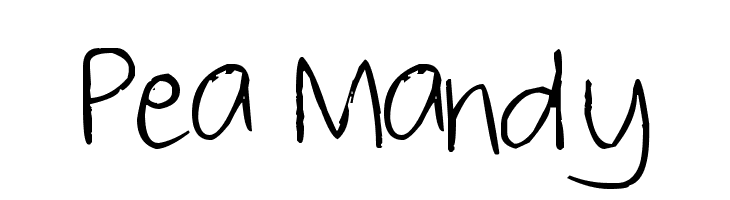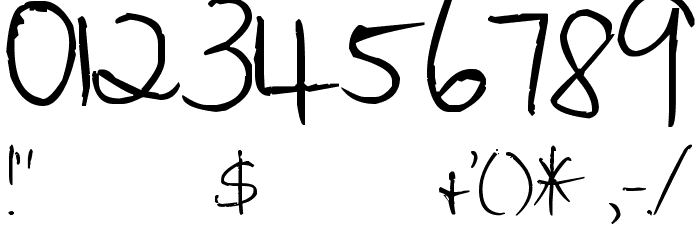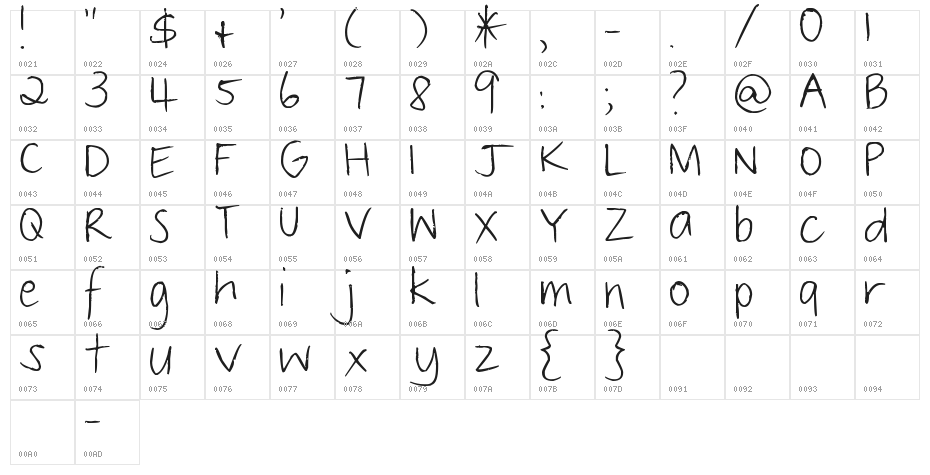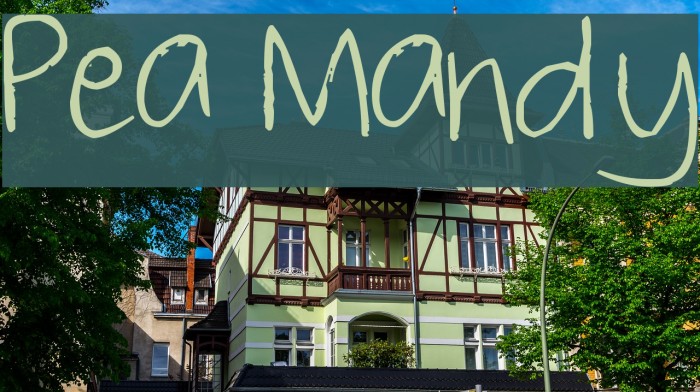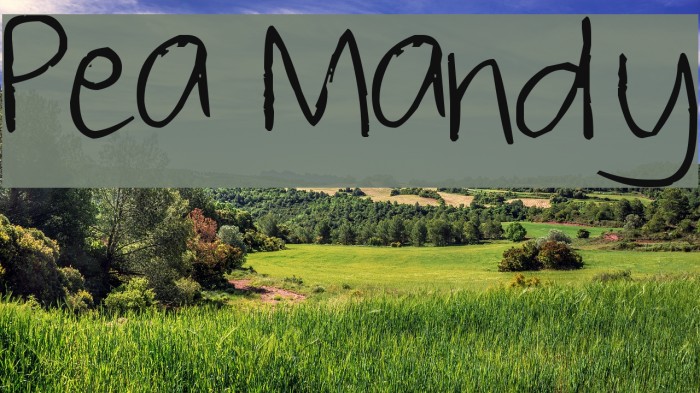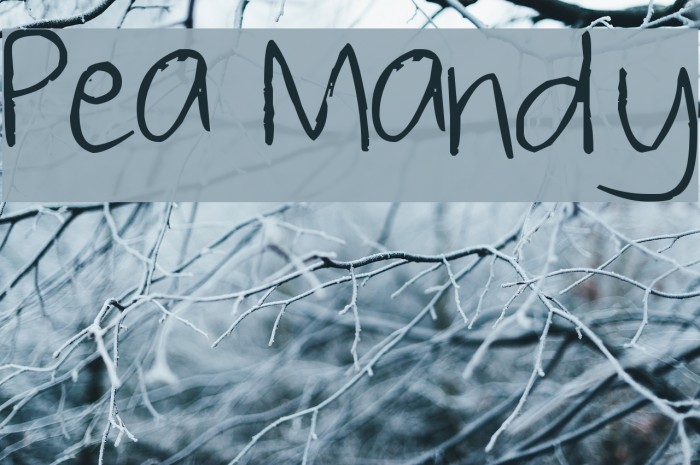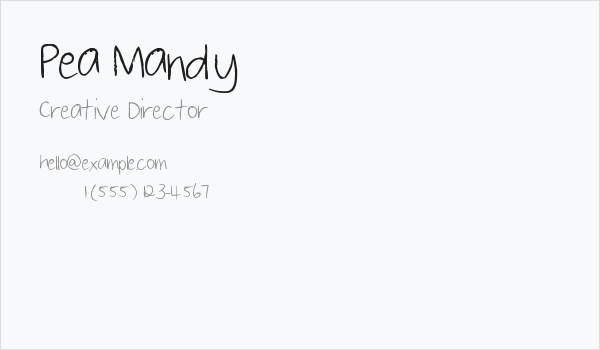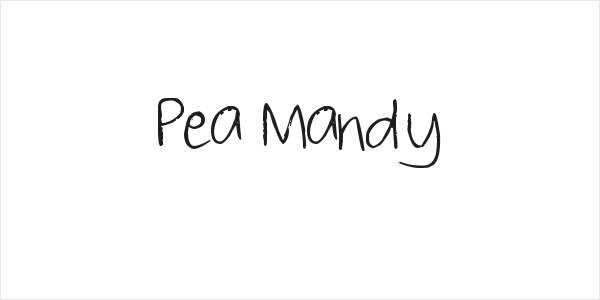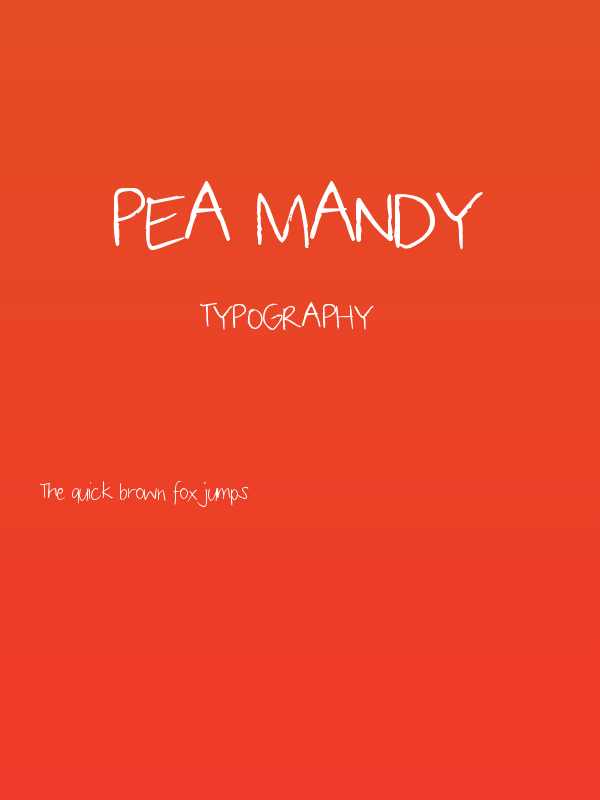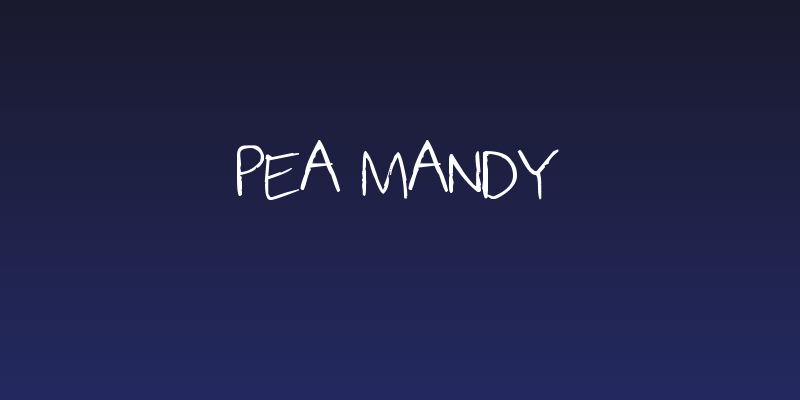
Pea Mandy Font
Pea Mandy Description
This font exudes a playful and casual handwritten style, characterized by its irregular strokes and organic flow. The letters have a natural, freeform appearance, reminiscent of a personal note or diary entry. The uppercase letters are bold and slightly uneven, giving them a lively and dynamic feel. Lowercase letters maintain a consistent style, with some characters extending below the baseline, adding to the font's whimsical nature. The numerals are distinct and easily readable, while the special characters complement the overall aesthetic with their quirky design. This font captures a sense of spontaneity and creativity, making it ideal for projects that require a personal touch.